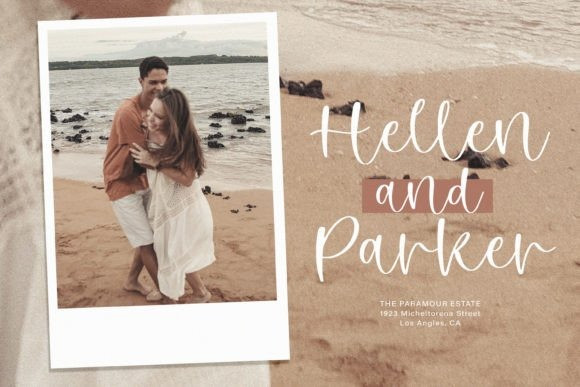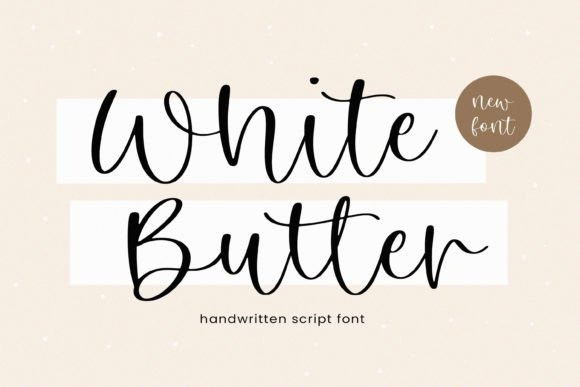
White Butter Font
Proudly Present, White Butter Script Font. White Butter A Handwritten Font , which was created with great care and specially created for you
White Butter is perfect for product packaging, branding project, megazine, social media, wedding, or just used to express words above the background.